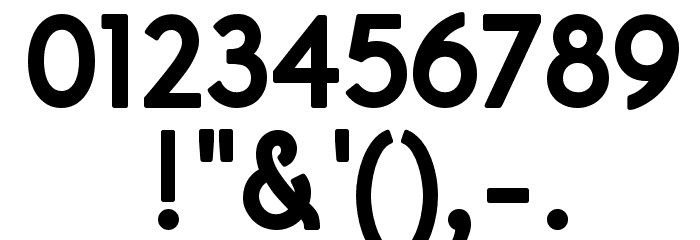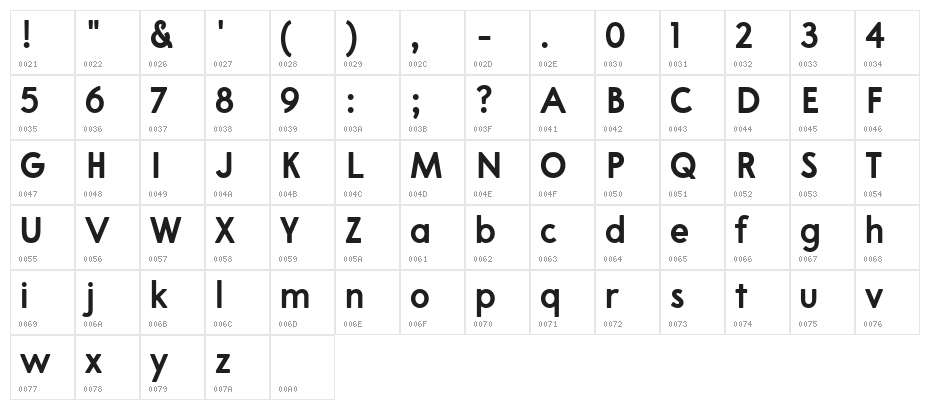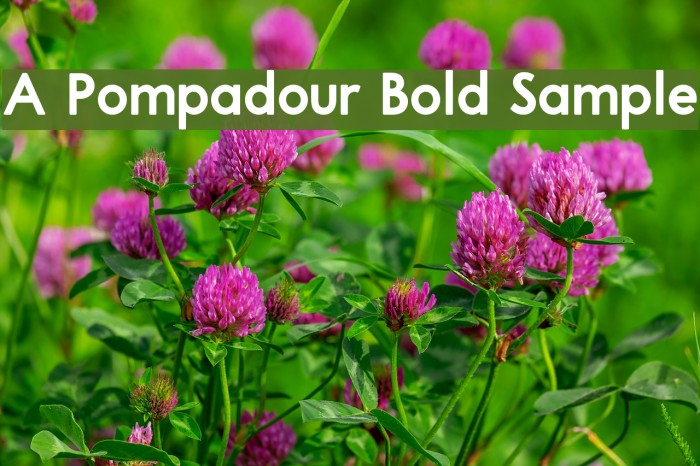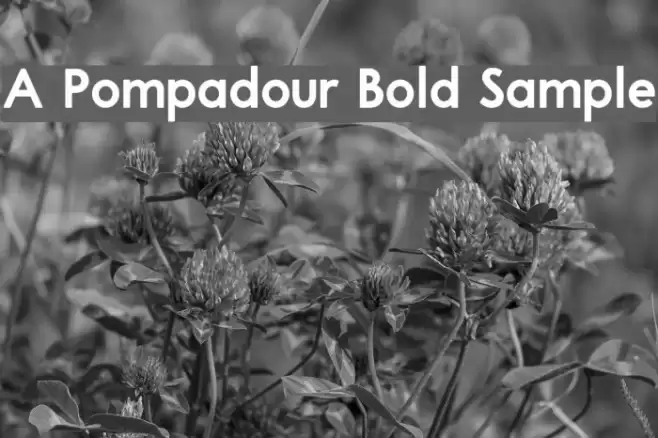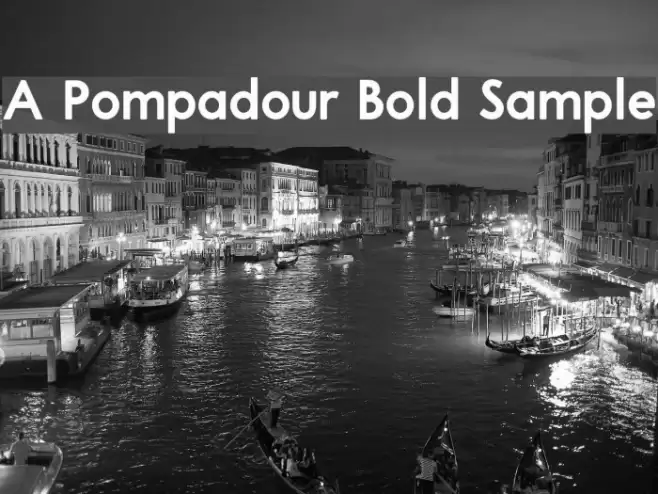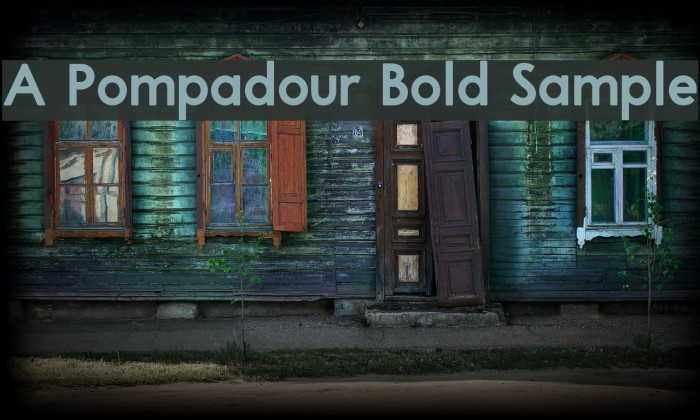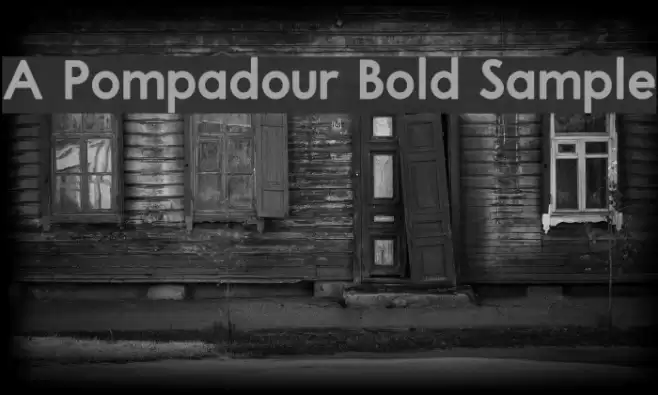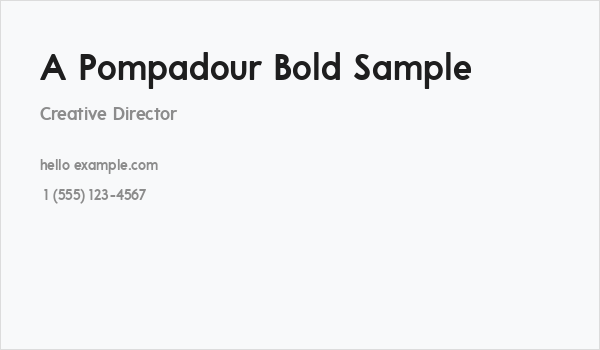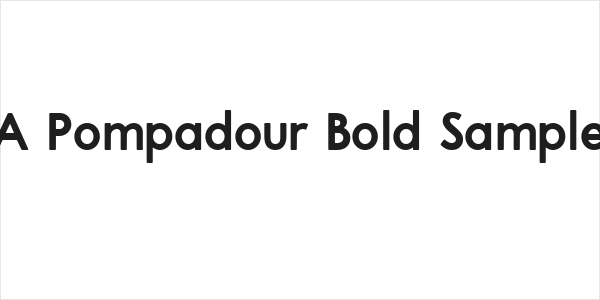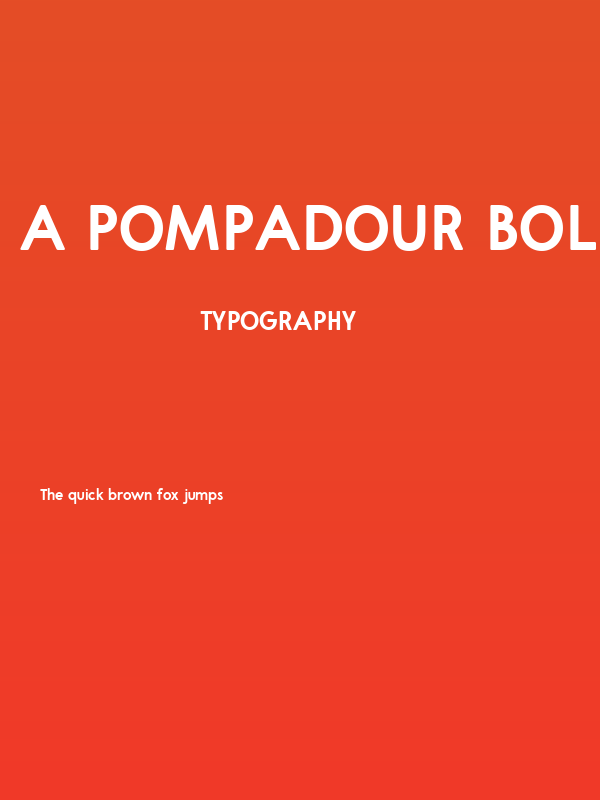
A Pompadour Bold Sample Font
A Pompadour Bold Sample Description
This font features a bold and modern sans-serif design with clean, geometric lines and a strong presence. The uppercase and lowercase letters are well-proportioned, offering a harmonious balance that is both visually appealing and highly legible. The numerals are clear and distinct, making them suitable for a variety of applications. Special characters are included, maintaining the font's cohesive style. The overall design is sleek and contemporary, making it versatile for both digital and print media.
Use CaseHeadlines, Logos, Branding
Proposed ProjectsIdeal for branding, advertising, headlines, and digital media projects where a strong, modern aesthetic is desired.